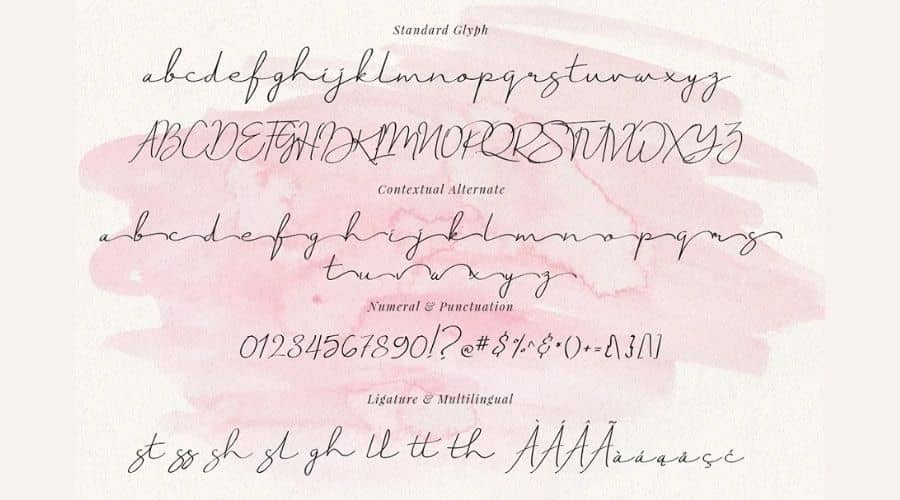
Introducing, Just Signature font free! A high quality Handwritten and Script font that is designed by Creatype Studio on Jun 30, 2018 .
Just Signature Font Free Download is available. A latest sleek and modern script with a fashionable handwritten and script peinture this font look realistic, classy, and organic, making it ideal for just about any excellent project that requires handwriting flavour. Just Signature Font Free Download is available to install and use for personal purposes. All uppercase and lowercase letters and a few special characters are available in the free version.
Just Signature font is suitable for icons as well as brand identity, greetings and postcards, wedding design features, social media posts, advertisements, product packaging, production processes, identify, portraiture, watermark, big events, and everything else. It gives any project an excellent finishing, specially to those with Handwritten sign.